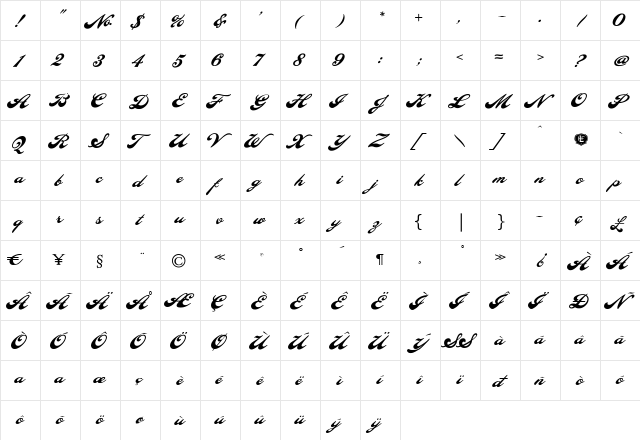
LHF Pilsner Regular
Design Context for LHF Pilsner Typeface
LHF Pilsner is a composed and adaptable typeface that performs quietly and consistently across a wide range of design contexts.